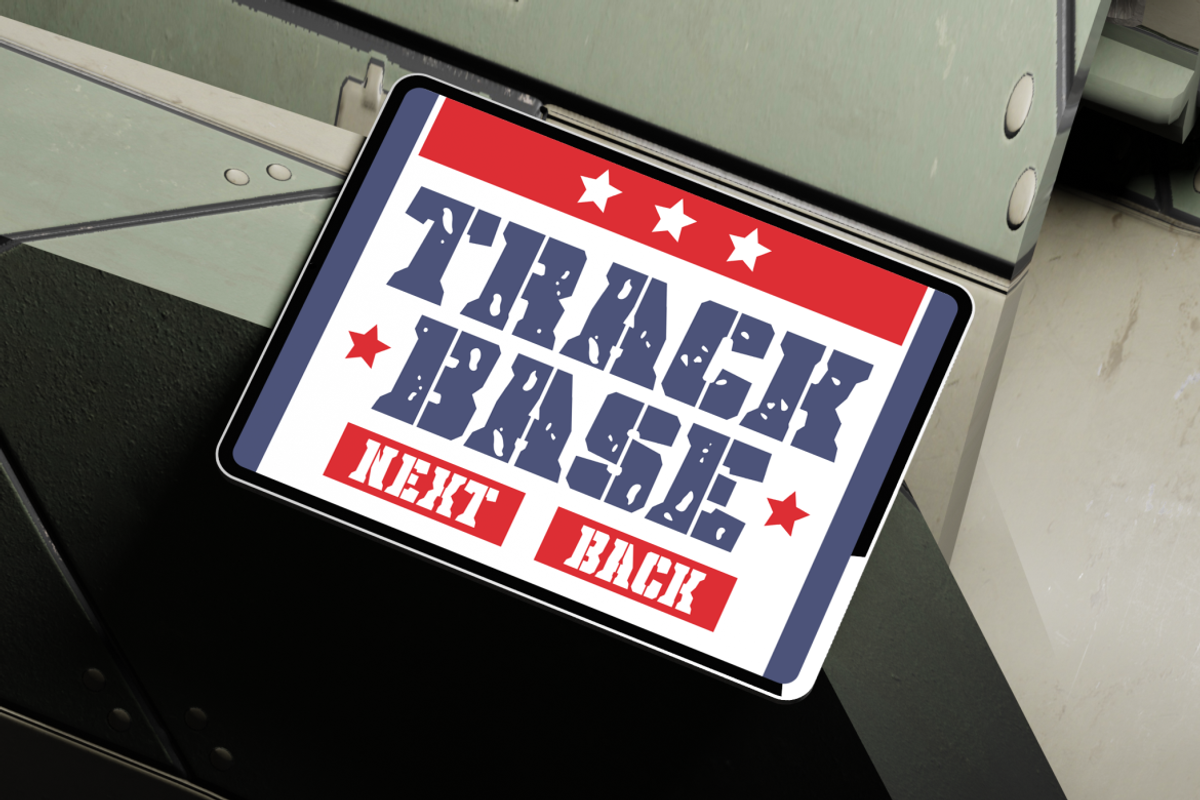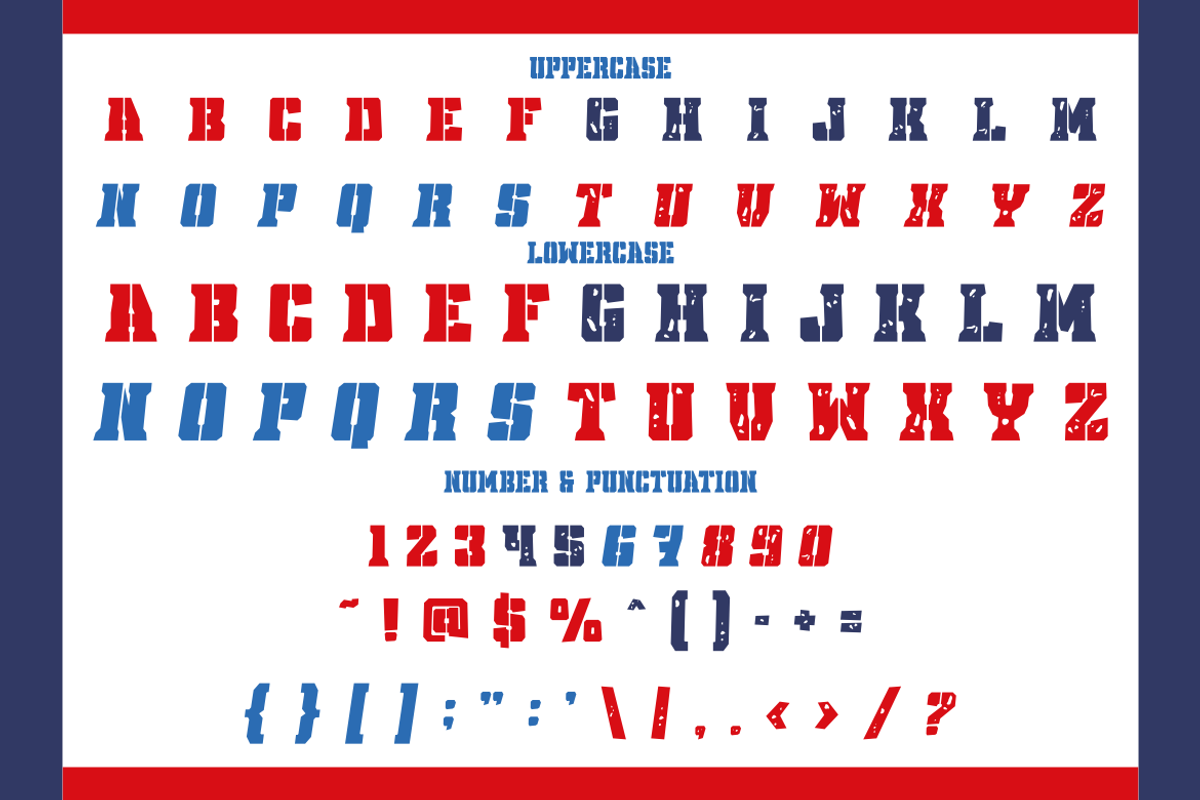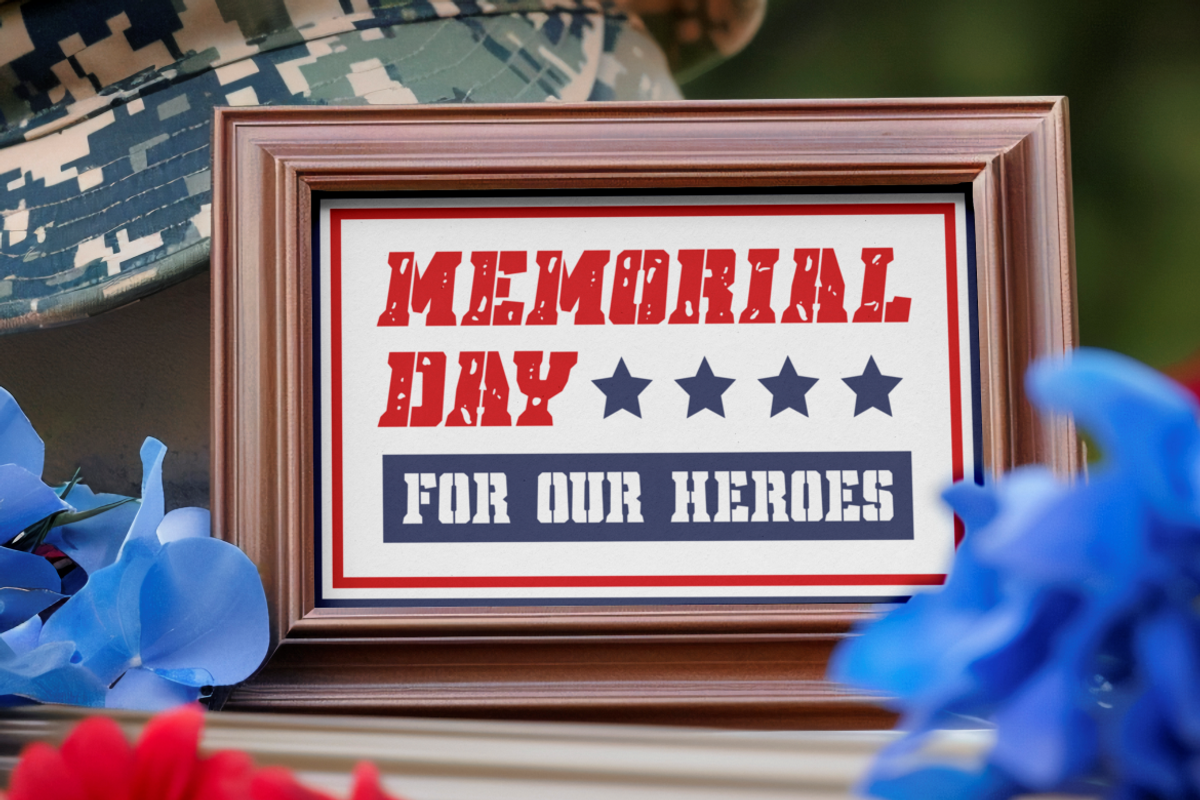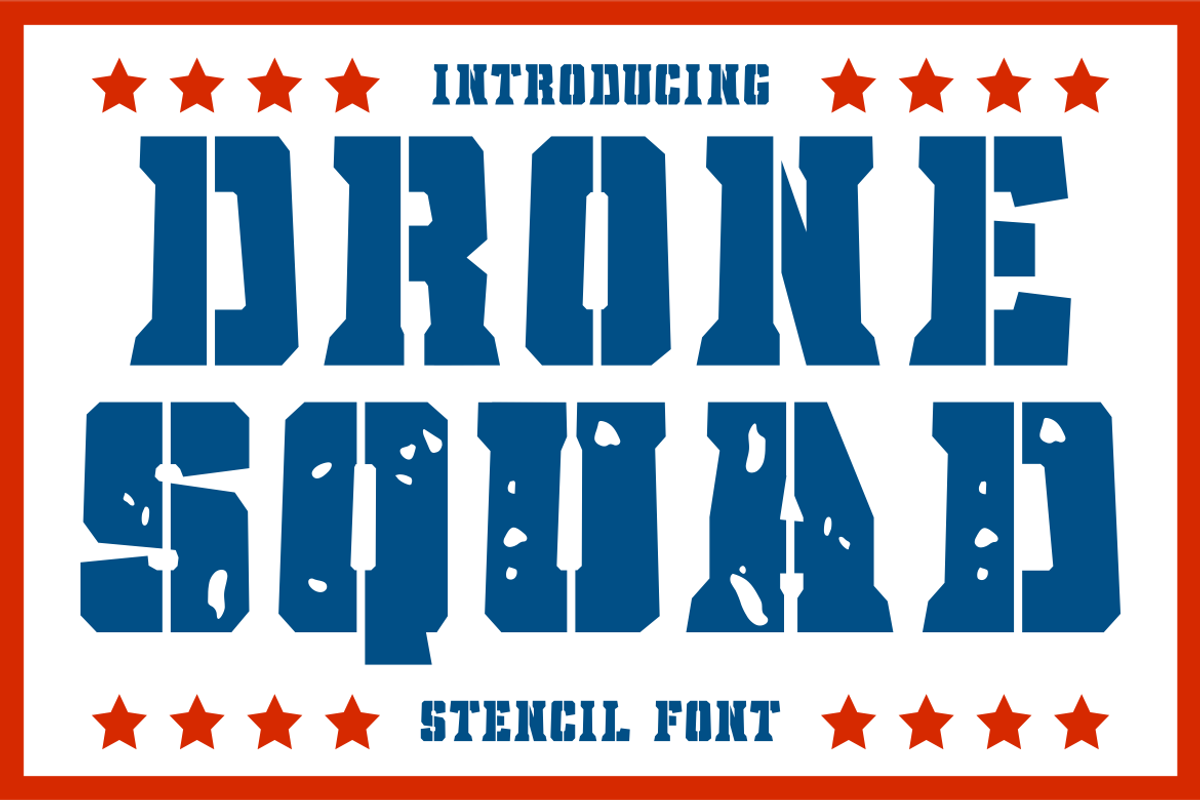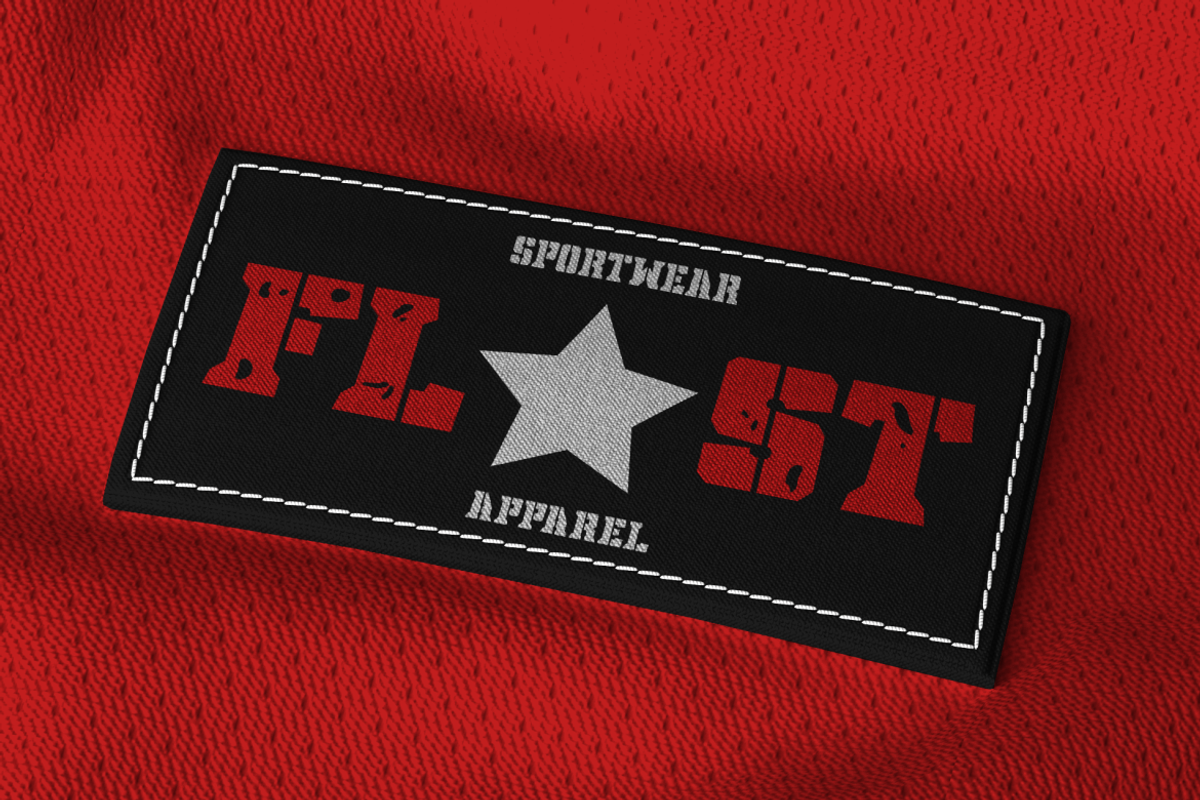
Drone Squad Stencil Font
Drone Squad Stencil Font is a bold and rugged typeface designed with a strong military style. The letterforms carry sharp stencil cuts, giving each character a tactical and industrial edge. Some glyphs include distressed textures, adding a battle-worn and authentic look. The geometric and heavy-weight style ensures high visibility, making it suitable for impactful titles, signage, and branding. Its bold structure reflects power, resilience, and strength, making it ideal for projects that need authority and intensity.
Perfect for logos, posters, packaging, or apparel, this font delivers a commanding presence across any medium. It works beautifully in army-themed designs, event promotions, movie titles, and even sports branding. The uppercase and lowercase set, combined with numbers and punctuation, provides flexibility for creative layouts. With its versatile stencil cuts and bold shapes, Drone Squad Stencil Font brings a professional yet gritty style to both print and digital designs.